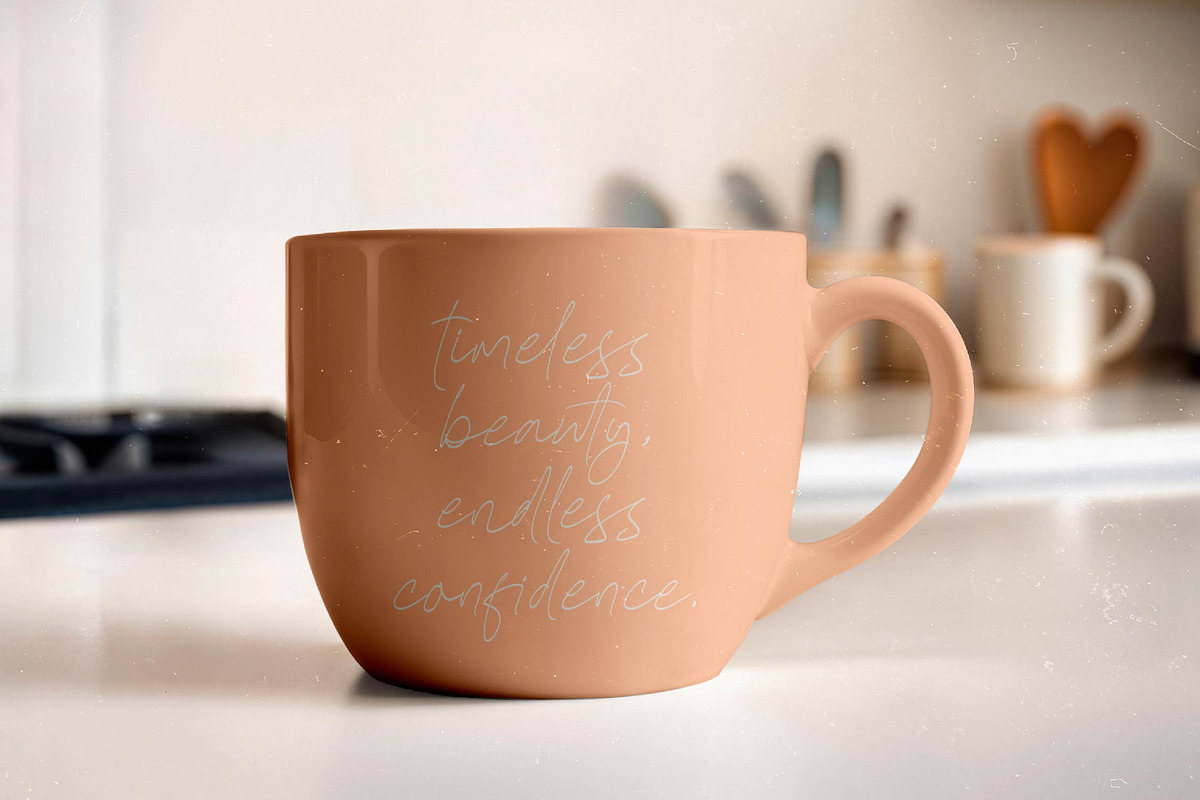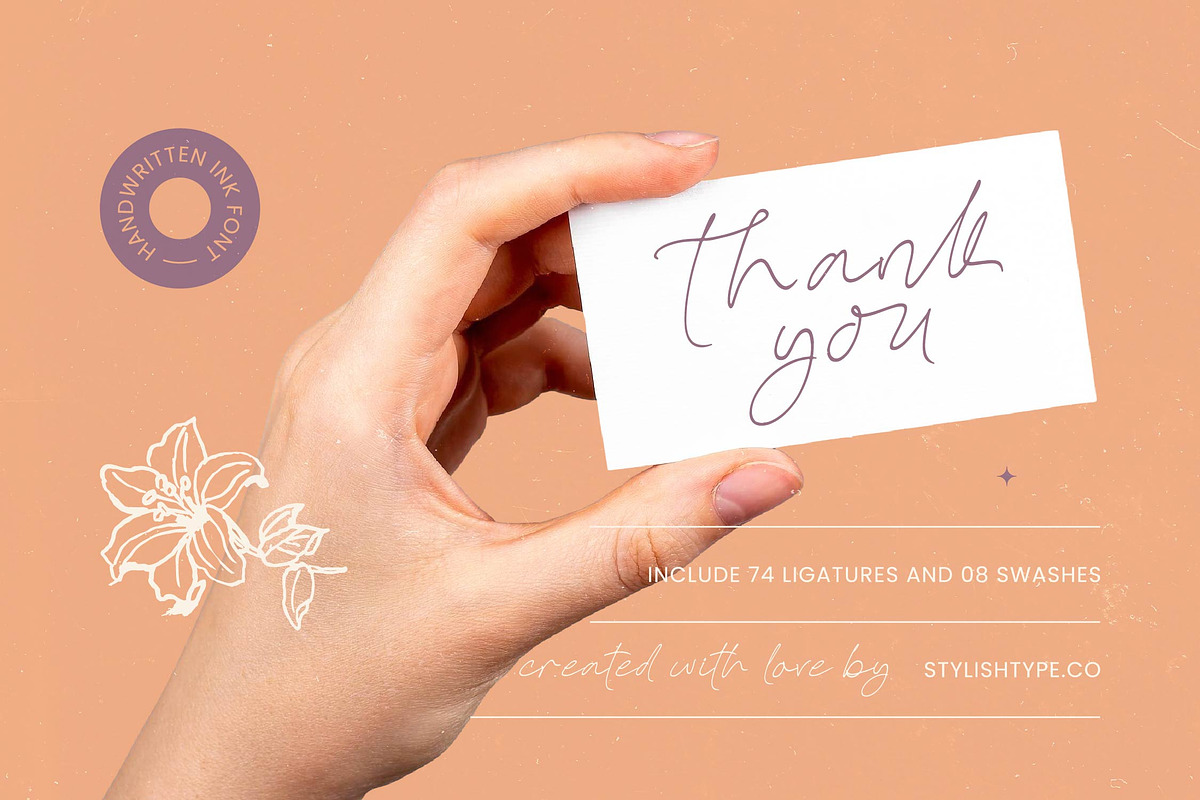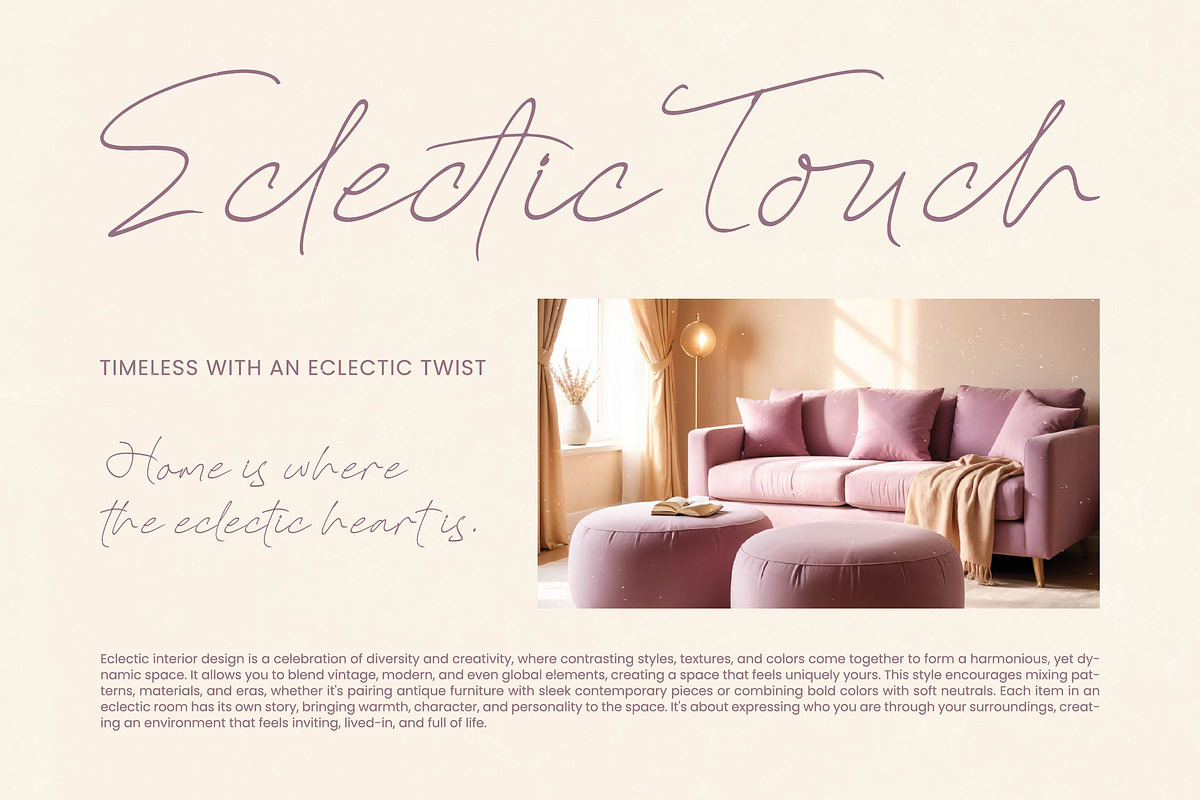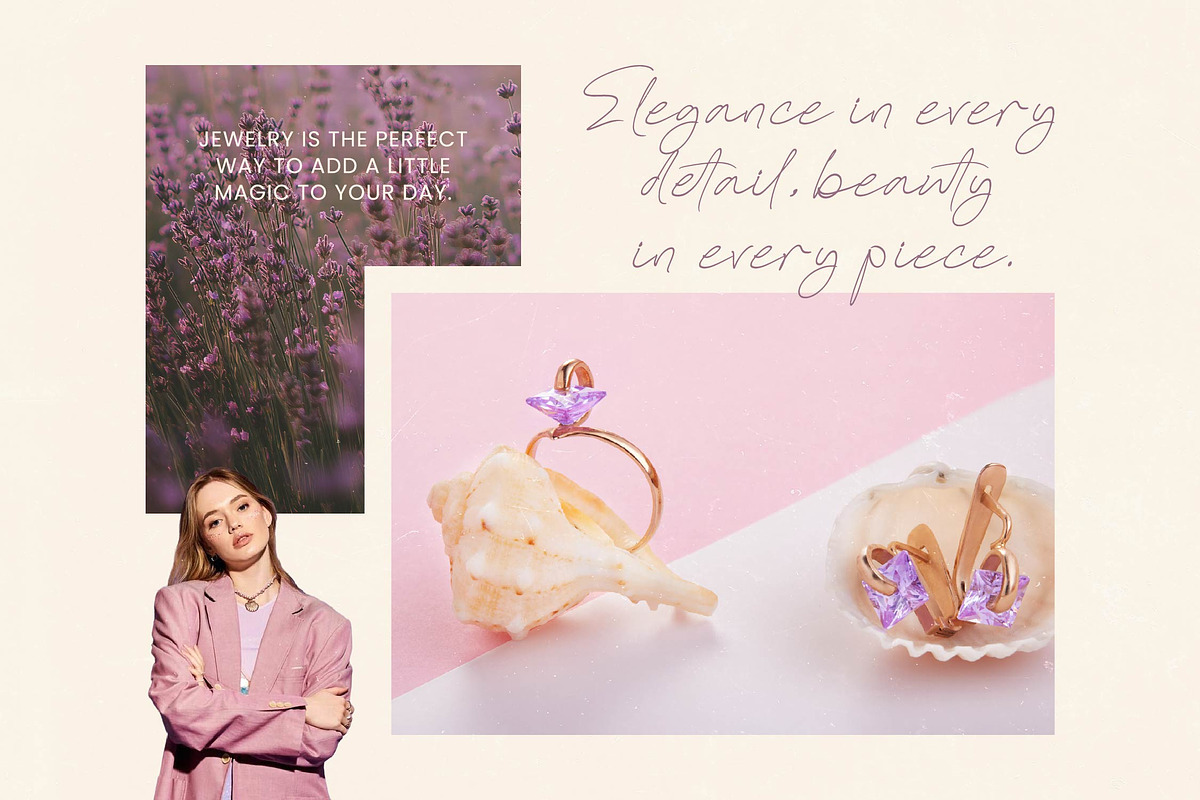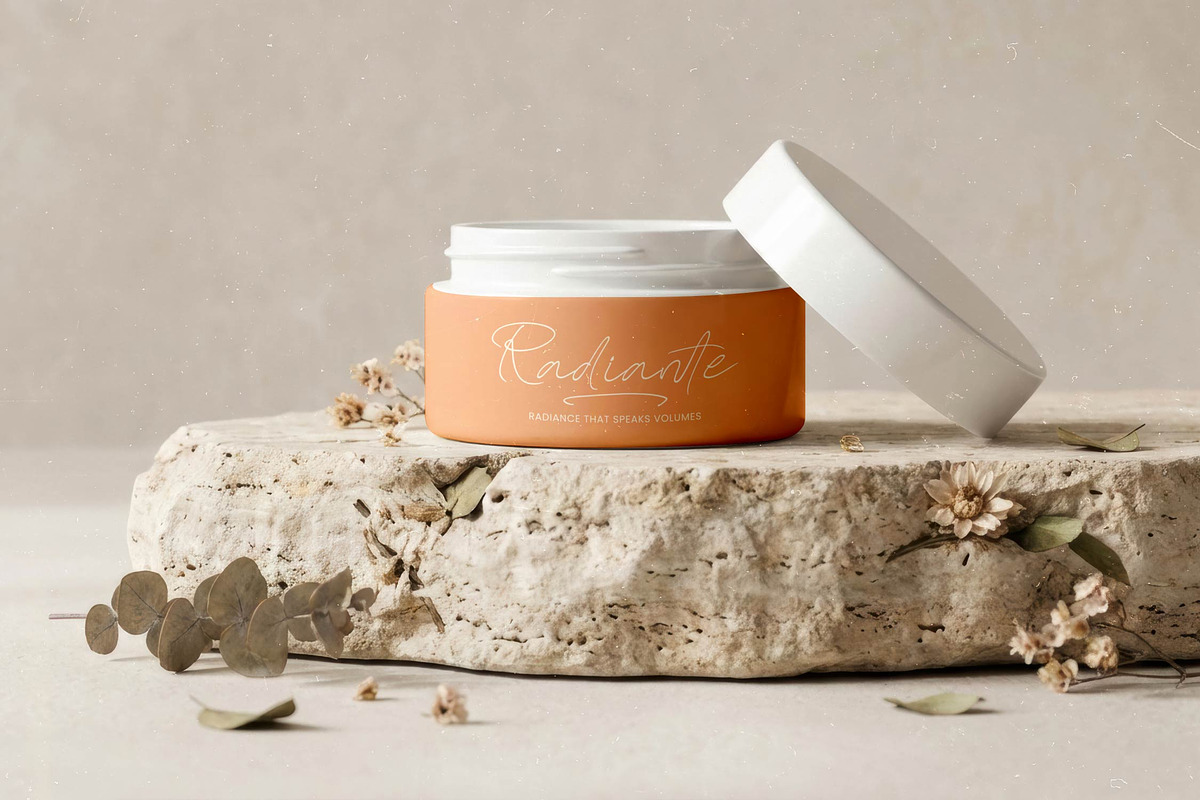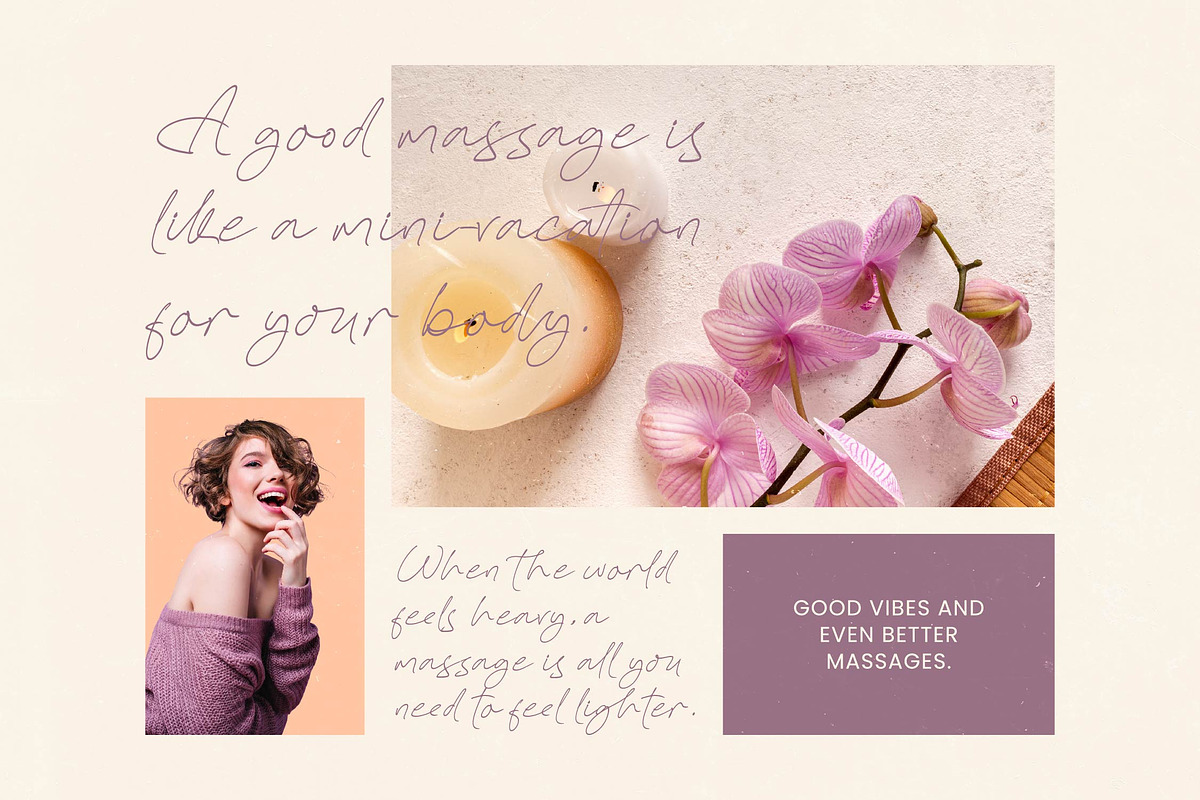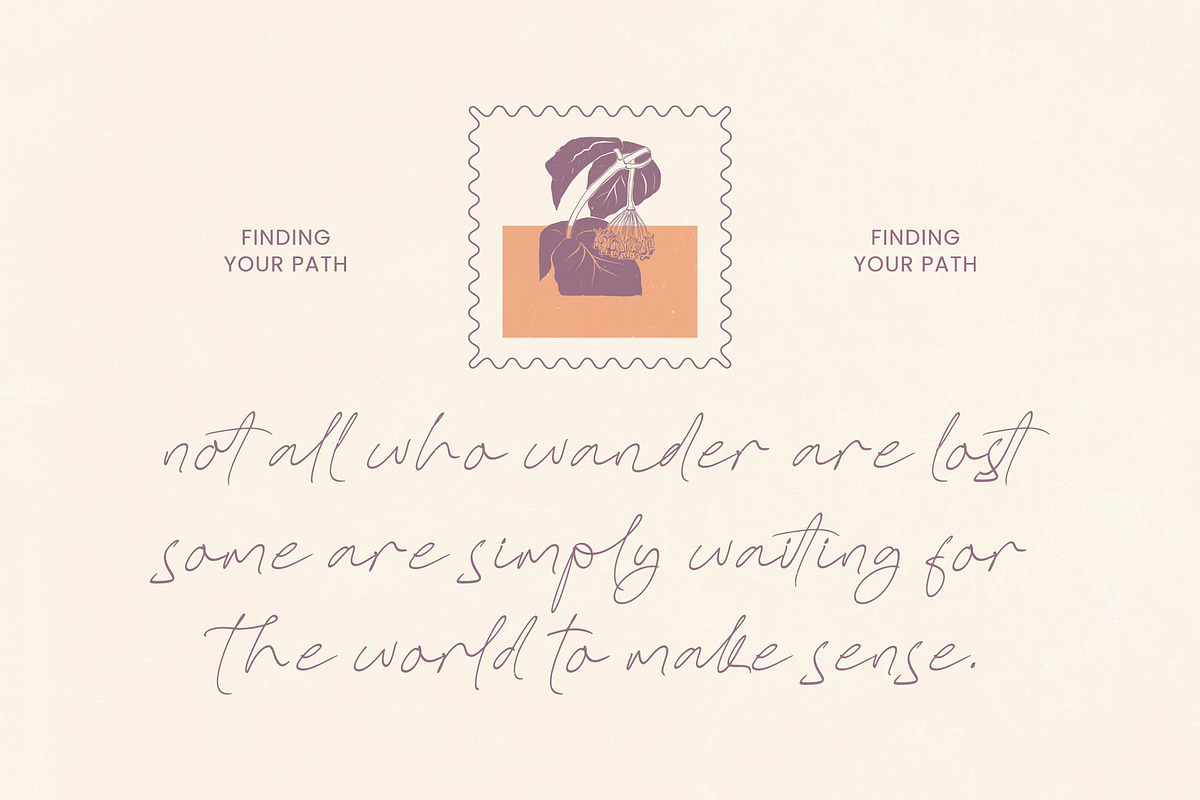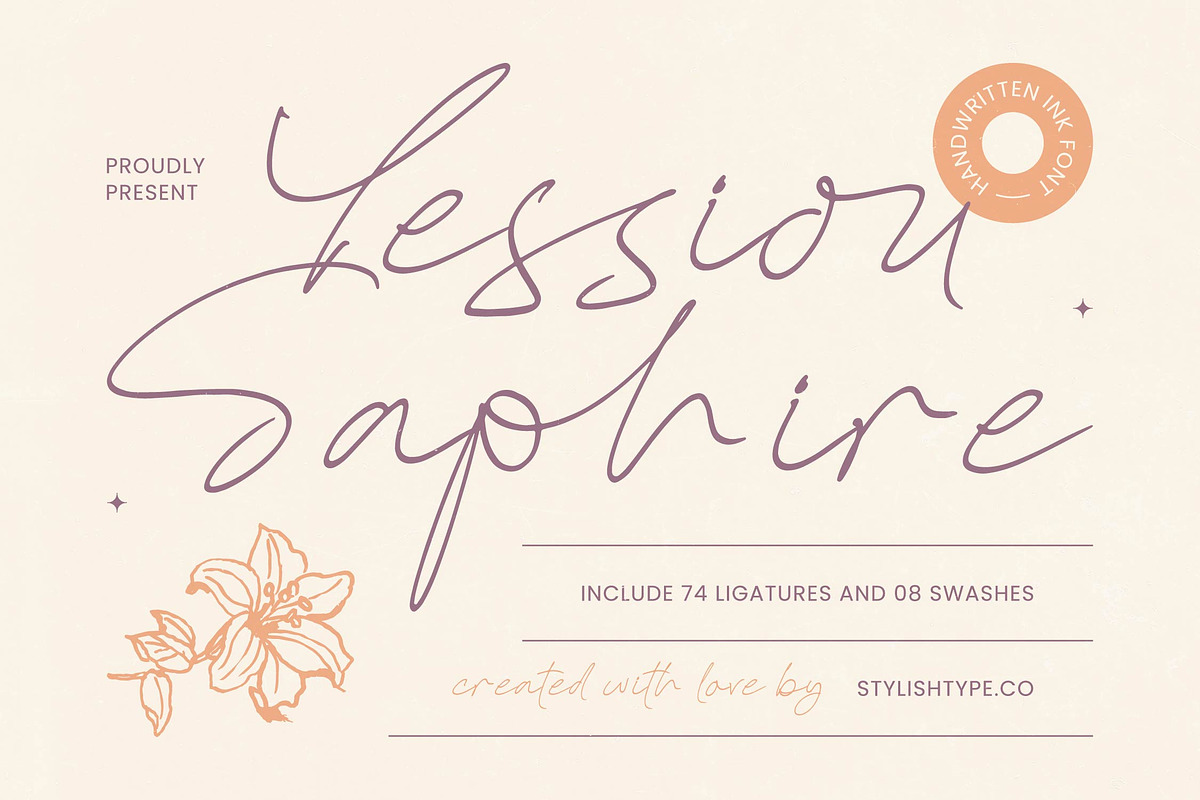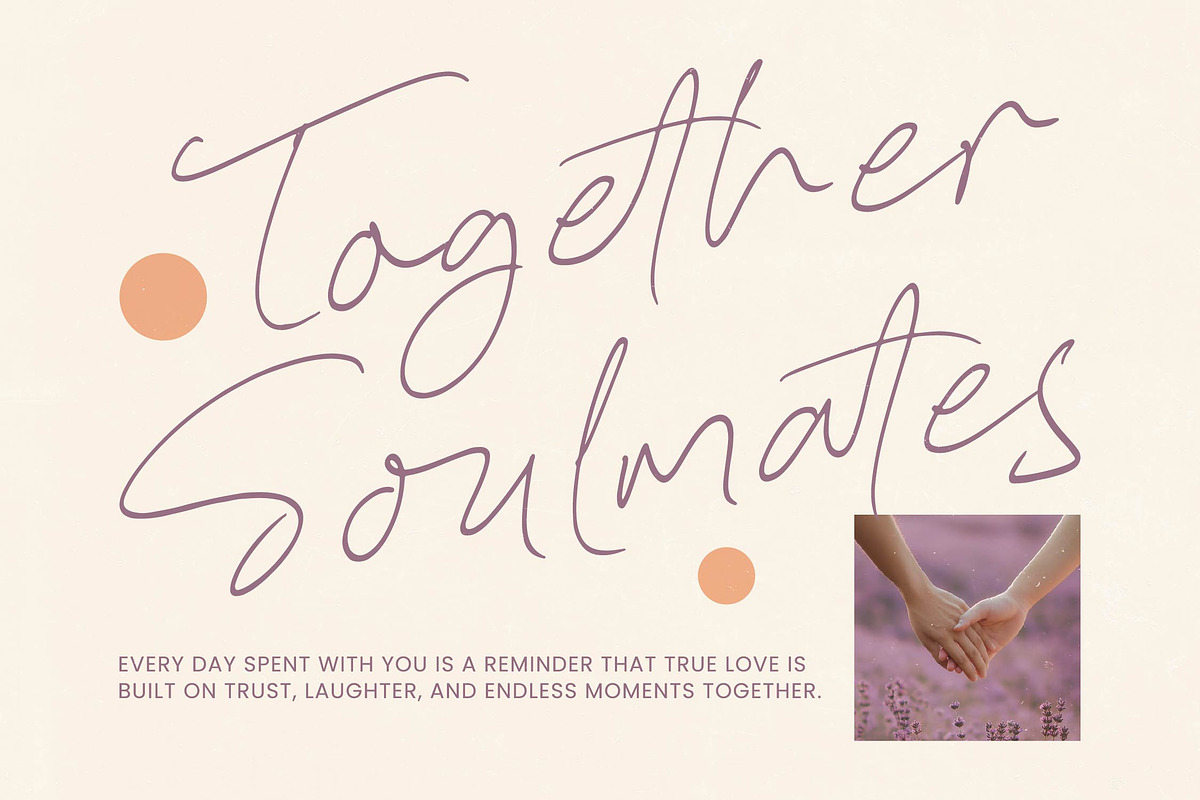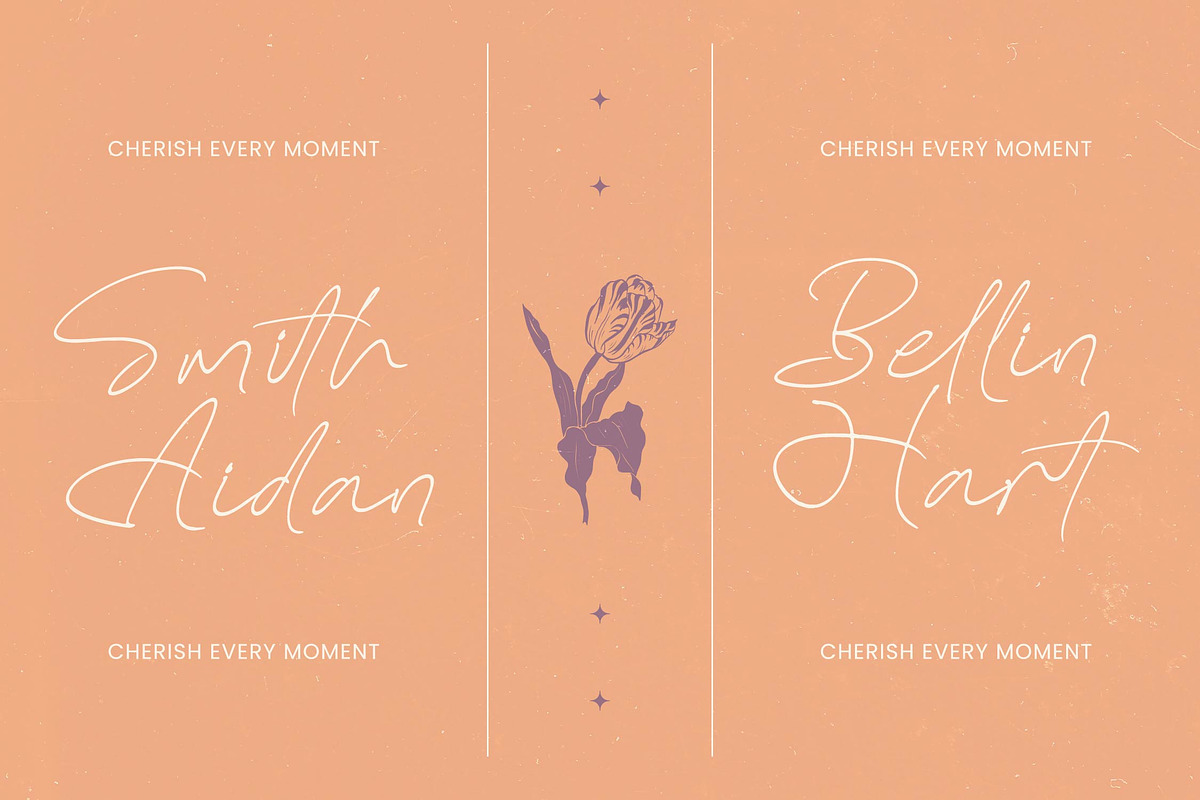
Yessiou Saphire Handwritten Ink
Yessiou Saphire - Handwritten Ink Font , Experience the effortless grace of Yessiou Saphire, a font that captures the delicate flow of handwritten ink with timeless sophistication. This typeface is designed to bring an authentic, human touch to every digital canvas it graces.
Inspired by the rhythmic motion of a pen gliding across textured paper, this font embodies the soul of artisanal calligraphy. It evokes the intimacy of personal letters and the quiet beauty of a morning spent in a sunlit design studio.
While moving away from the rigid structure of a modern serif display, this font delivers a luxury typography experience that rivals any high-contrast serif. It functions as a sophisticated editorial font that guarantees a memorable branding impact through its fluid and intentional stroke work.
In an era dominated by the modern serif trend, this typeface offers a refreshing script alternative that perfectly complements high-end editorial display fonts. It represents the pinnacle of character-driven typography that buyers are currently demanding for bespoke projects.
Perfect for high-end logo design and comprehensive branding projects, it adds a layer of exclusivity to editorial layouts and luxury packaging. It is an essential choice for wedding invitations and high-street fashion lookbooks that require a custom signature aesthetic.
This comprehensive set is packed with over 74 ligatures and 8 custom swashes to ensure every word looks custom-made. It also includes full multilingual support and a vast array of international characters and alternates for global versatility across all platforms.